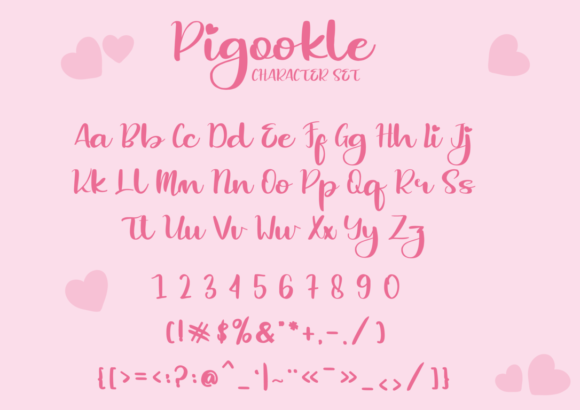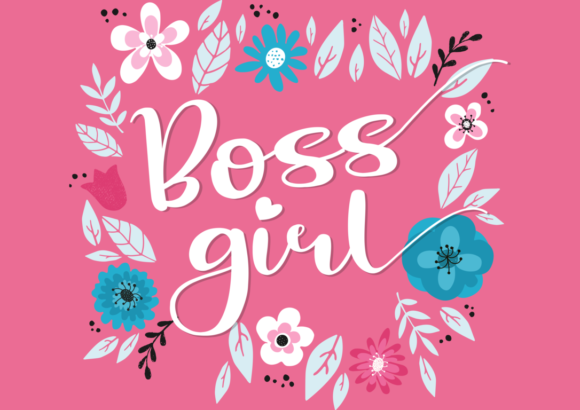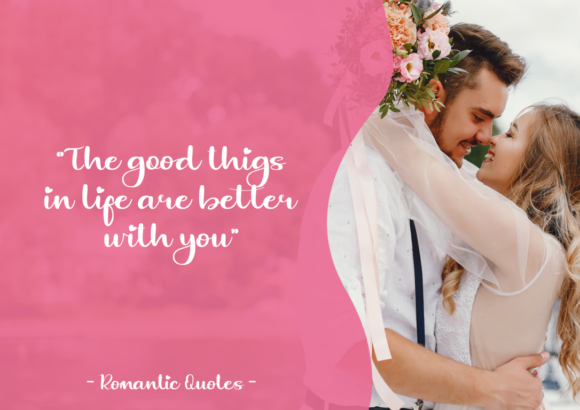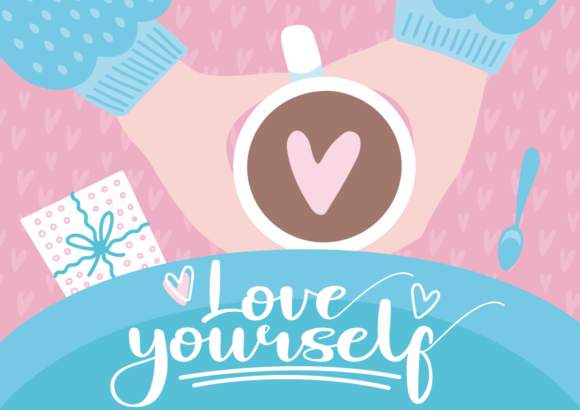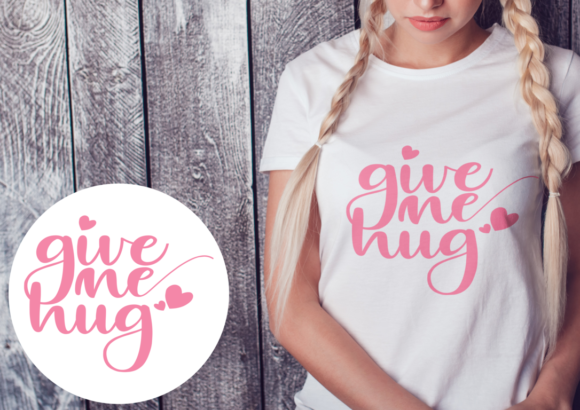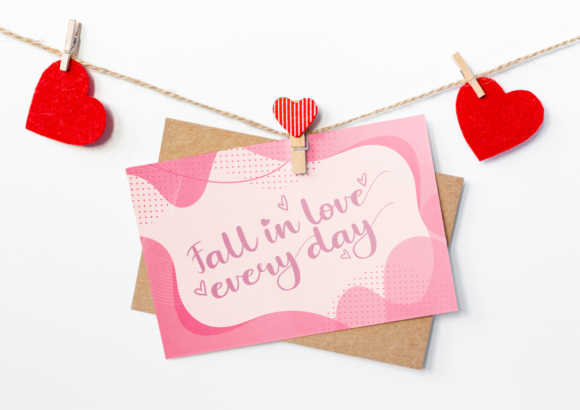
Introduction to Pigookle Font
As a designer, there’s nothing quite like that moment when a project comes together – the colors align, the typography clicks, and the overall aesthetic pops. It’s a rush of excitement and satisfaction that makes all the late nights and early mornings worth it. And sometimes, it all starts with a single font choice. For me, that font is often the Pigookle Font – a sweet, whimsical handwritten script that brings a touch of joy to any design.
The Pigookle Font is more than just a pretty face; it’s a design resource that’s both versatile and high quality. With its PUA encoding, you can access all of the glyphs and swashes with ease, making it a breeze to create custom designs that really stand out. Whether you’re working on a free download or a high-end commercial project, the Pigookle Font is a valuable addition to your toolkit.
So why do designers love the Pigookle Font? For starters, it’s incredibly easy to use, thanks to its transparent background and intuitive design. Plus, it’s available for free download, making it a great choice for designers on a budget. Whether you’re working on a creative project that needs a little extra flair or simply looking for a high-quality design resource, the Pigookle Font is a great place to start.
- High-quality design: This font features a unique and high-quality design that can add a touch of elegance to any project.
- Perfect for creative projects: The Pigookle Font is ideal for use in creative projects, such as graphic design, web design, and digital art.
- Unique and creative: The font’s unique design makes it perfect for adding a touch of creativity to any project.
One of the standout features of the Pigookle Font is its high-quality design. The font is incredibly versatile and can be used for a variety of creative projects, from digital art to print materials.
- ✨ High-quality design with a unique aesthetic
- ✨ Extremely versatile and suitable for various creative projects
- ⚠️ Some users may find the font’s unique design style to be too unconventional for certain projects
Overall, I’d say the Pigookle Font is a great addition to any designer’s toolkit. While it may not be perfect for every project, its high-quality design and versatility make it a valuable resource for creatives looking to add a unique touch to their work.
The Pigookle Font is a versatile design resource that can be used in a variety of creative projects, including:
- Branding and marketing materials.
- Web design and development.
- Print design and publishing.
- Graphic design and illustration.